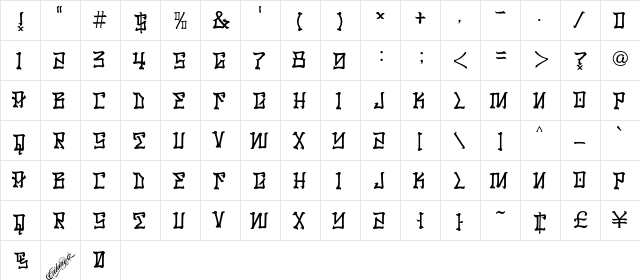
Los Santos Regular
DesignerGilang Purnama A.K.A GEESUCKS
Design Context for Los Santos Typeface
Los Santos is a composed and adaptable typeface that performs quietly and consistently across a wide range of design contexts.
Pro Tip: Pair Los Santos with a font of contrasting weight or personality to build a more expressive typographic hierarchy.